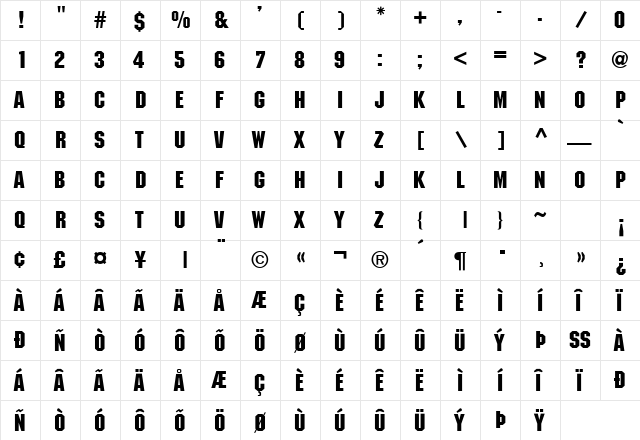
ft42 Regular
Design Context for ft42 Typeface
ft42 takes a measured approach to typography — its balanced proportions and neutral character make it a reliable workhorse for both digital and print work.